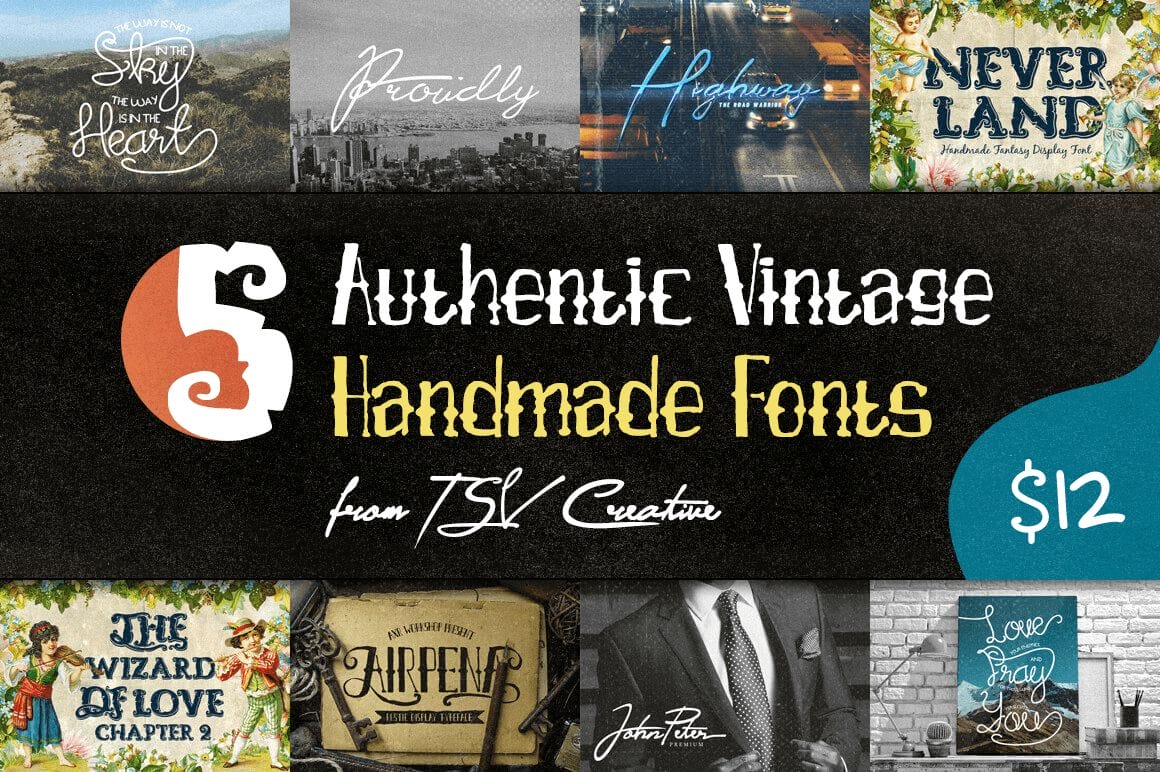
Bring the past to the present with this fantastic collection of 5 Authentic Vintage Handmade Fonts from TSV Creative. Work a retro feel into your modern projects as you produce everything from posters to T-shirts to labels. Bonus vectors, ligatures, alternates, swashes and more OpenType features make an already amazing set even more incredible.
- 5 authentic vintage handmade fonts.
- Add a truly retro feel to your latest project.
- Mix classic style with a modern look.
- Many include OpenType Features: Ligatures, Alternates, Swashes, Ornaments and more.
- Bonus vector elements, dingbats and additional fonts.
- Mix and match Uppercase, Lowercase and Numeric glyphs.
- Specifically, this Vintage Handmade Bundle includes the following typefaces: Outrunner Retro Script, Proudly Signature Script, Neverland Font, Airpena Rustic Font and Dignity Cursive + Bonus.